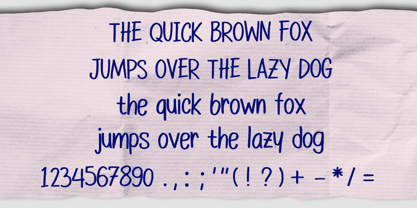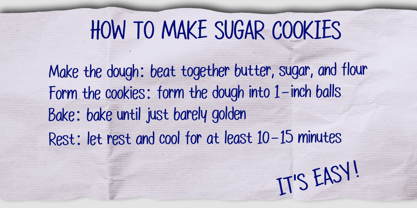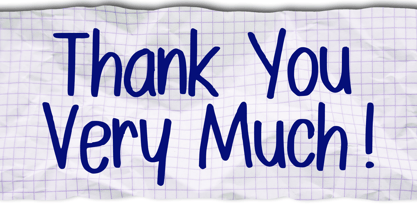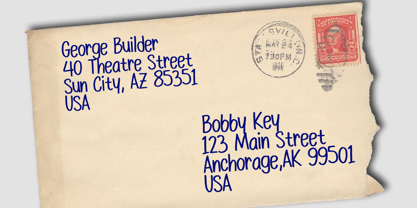
Ballpoint Handwriting
La familia tipográfica Ballpoint Handwriting fue diseñada por Gabriel Valentinus y publicada por Mvmet. Ballpoint Handwriting contiene 1 estilos.
Ballpoint Handwriting is a fun daily use and suitable for everyday use pen font. It will elevate a wide range of design projects to the highest level. You can use this font for many design ideas such as stickers, t-shirt designs, amazing logo designs, magazine or book covers, comics, cartoon drawings, and many more. This font will add a super cool touch to your designs!